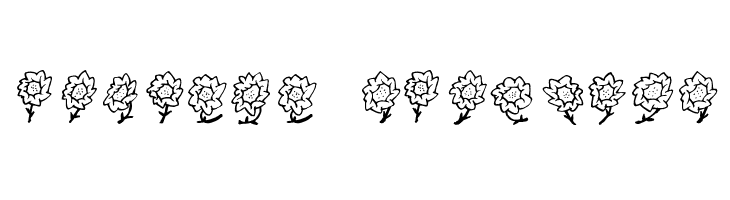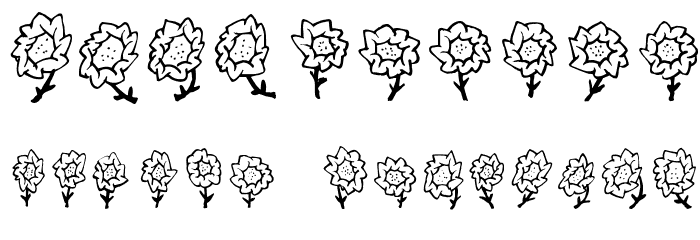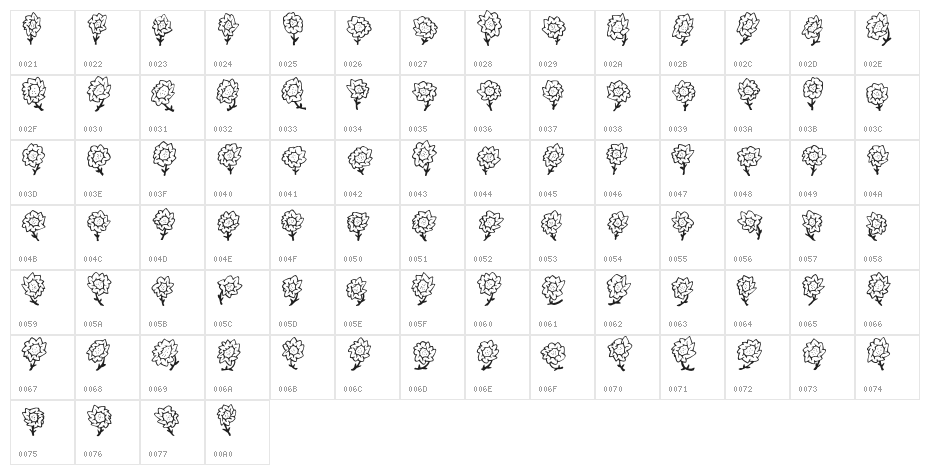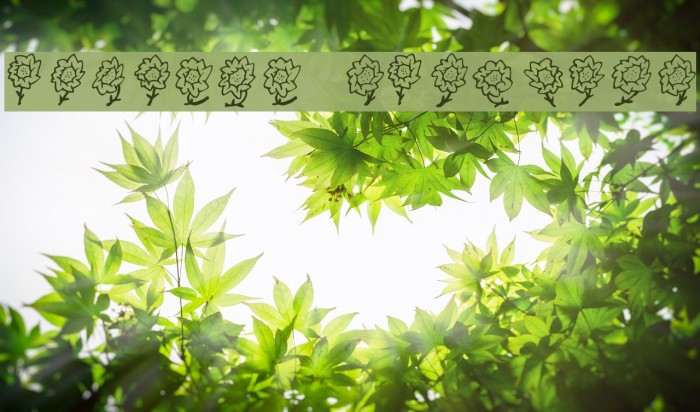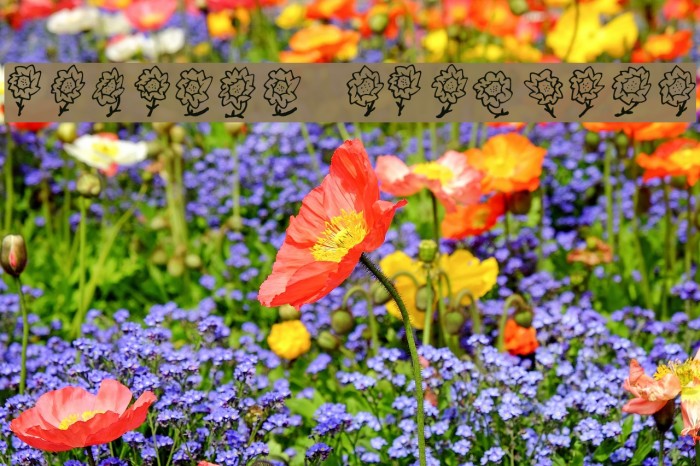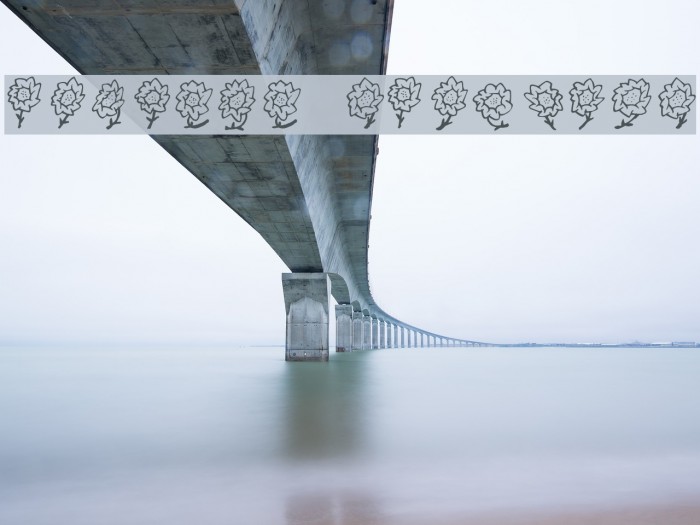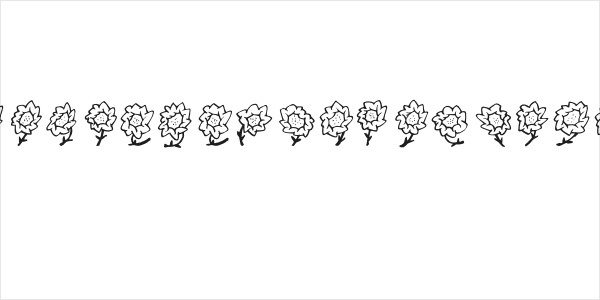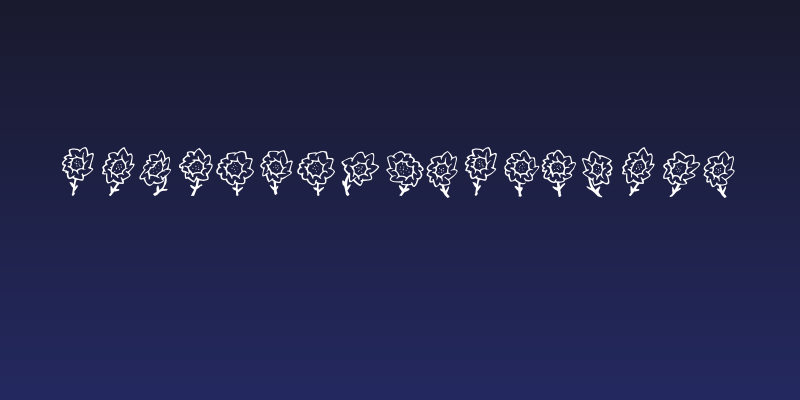
FE-Maja'sFlowers Font
FE-Maja'sFlowers Description
A decorative font composed entirely of hand-drawn flower illustrations, each character represented by a unique flower with a playful, outlined style and varying petal shapes. The design is whimsical and organic, with consistent line thickness and a casual, sketch-like appearance.
| Overall Style | Decorative, Whimsical, Hand-drawn |
| Use Case | Logos, Headlines, Decorative text, Themed projects |
| Proposed Projects | Greeting cards, invitations, children's books, spring or floral-themed posters, decorative headings. |